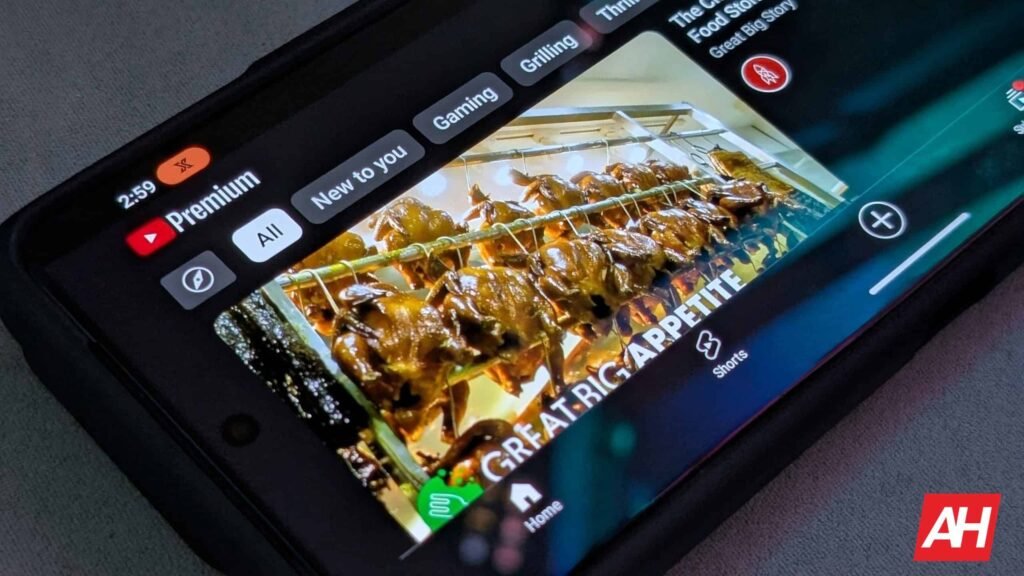
YouTube is currently running a massive visual experiment on its mobile app, and to say it is dividing users would be an understatement. Over the last few days, people started noticing that the text across their main home feeds suddenly looks completely different. Google is quietly testing a new look, swapping out the classic, clean Android system font—Roboto—for one whose look seems to match a much tighter corporate sibling called YouTube Sans Condensed for the app.
Currently, this is just an A/B test, meaning only a select group of randomly chosen accounts see it. But the internet already has plenty of thoughts on the matter.
The breakdown of the design shift
The visual jump between the two fonts is pretty big, which is exactly why it feels so jarring. For years, the default font kept things simple. Roboto uses wide, rounded, natural shapes that give letters plenty of breathing room. It is designed by Google to be highly readable on small screens, letting you comfortably scroll through lists and video titles without straining your eyes. It is basic, functional, and stays out of your way.
YouTube Sans Condensed takes a completely opposite approach. It is an ultra-compact display font, meaning the letters stretch vertically and squeeze together horizontally. It brings a lot more brand personality to the table, featuring sharp, angular cuts on the tips of specific letters.
A beautiful branding tool or a mobile headache?
That sounds great for marketing campaigns or big bold headers on a billboard. However, it is causing major headaches on a packed smartphone screen. As the letters are so compressed, dense lines of text blend together. For many users, trying to quickly scan a two-line video title now feels like a chore, which explains the sudden wave of complaints popping up on Reddit (1, 2, 3, 4).
The good news for those who hate it is that the experiment remains highly restricted. The new font only shows up on video titles and channel names while scrolling through the primary feed. If you jump into the app settings, everything looks exactly like it used to. Even on the main feed, interactive elements like the top carousel buttons for different topics and the icons on the bottom navigation bar keep their classic layout.
During playback, the video title also keeps the classic font. However, the recommendations carousel uses the controversial YouTube Sans Condensed font, which is currently under testing. The font change does not affect the video names when entering YouTubers’ channels.
YouTube is clearly using this trial period to gauge community reactions, so whether this compact look becomes permanent or goes straight to the trash depends entirely on user feedback.